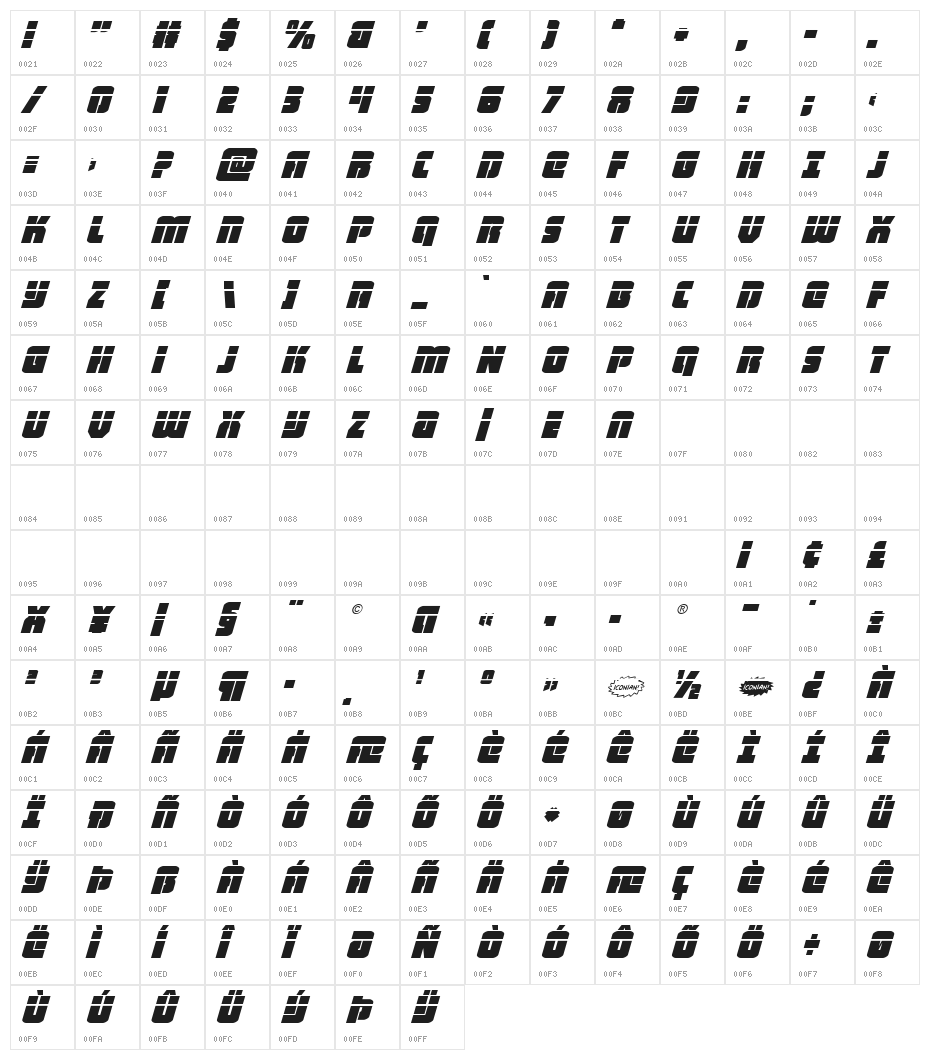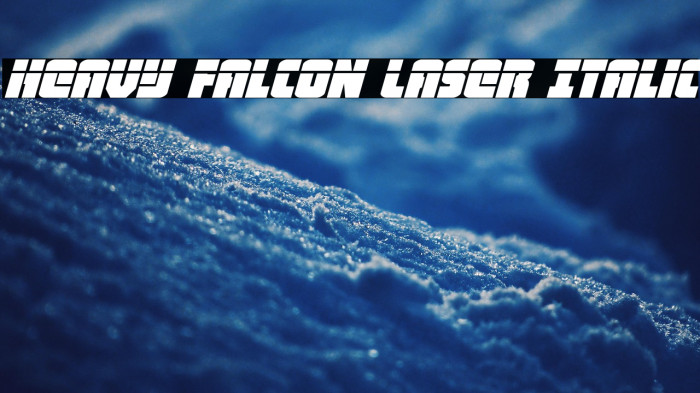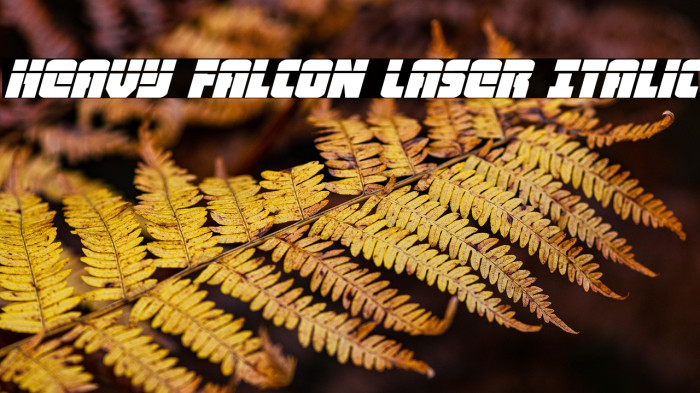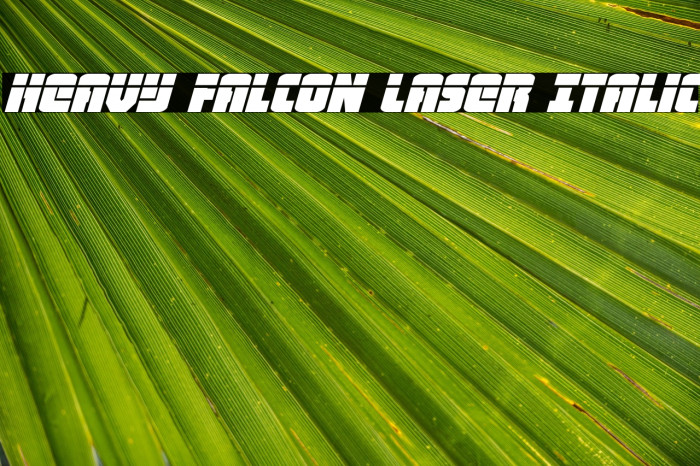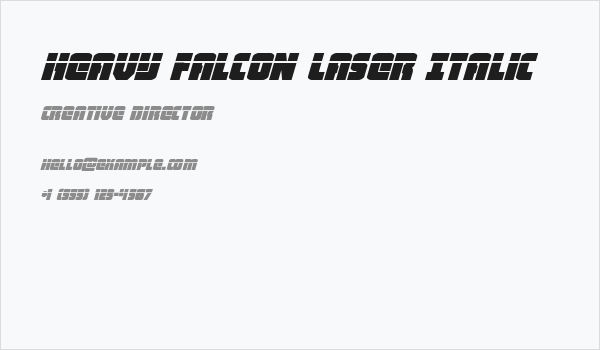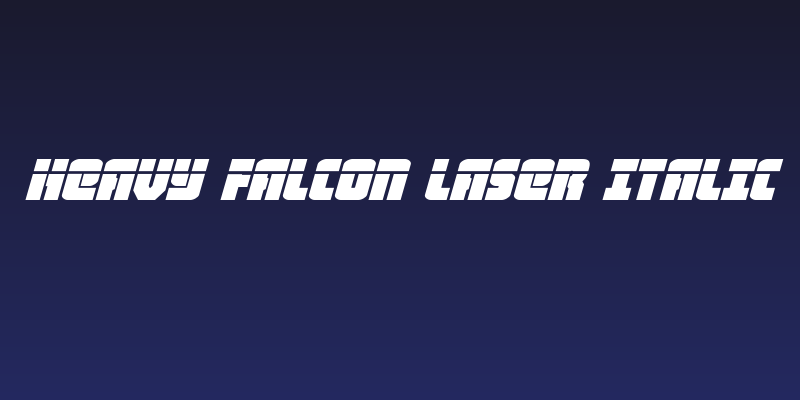
Heavy Falcon Laser Italic Font
Heavy Falcon Laser Italic Description
This font features a bold, futuristic design with a strong emphasis on angular shapes and a slanted, italicized style. The characters are heavily weighted, giving them a powerful presence, suitable for making a statement. The strokes are thick and consistent, with minimal contrast, creating a uniform appearance across all characters. The spacing between characters is tight, enhancing the compact and cohesive look. This font is ideal for projects that require a modern, dynamic, and impactful visual style.
| Proposed Projects | Ideal for sci-fi themed designs, video game titles, tech branding, and dynamic posters. |